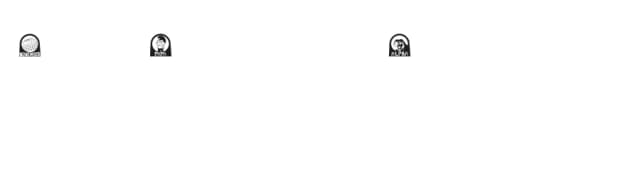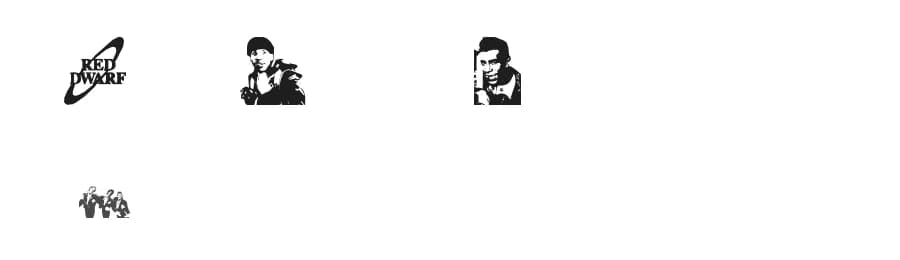
About Red Dwarf Characters Font
Red Dwarf Characters is a dingbat font designed by xstreamed.tv. It includes 653 glyphs, a regular weight, TTF (TrueType) format, and 292 languages. Red Dwarf Characters is free to download; check the license details on this page before commercial use. Dingbat fonts like Red Dwarf Characters work best for icons, ornaments, bullet points, and decorative accents.
Red Dwarf Characters Font is a versatile dingbats font that works for both headings and body text. Pair it with a contrasting sans-serif or serif font to add visual interest and a clear distinction between titles and body copy.
Red Dwarf Characters Font
Red Dwarf Characters Font is a dingbats typeface by xstreamed.tv, ideal for logos, invitations, branding, and creative projects.